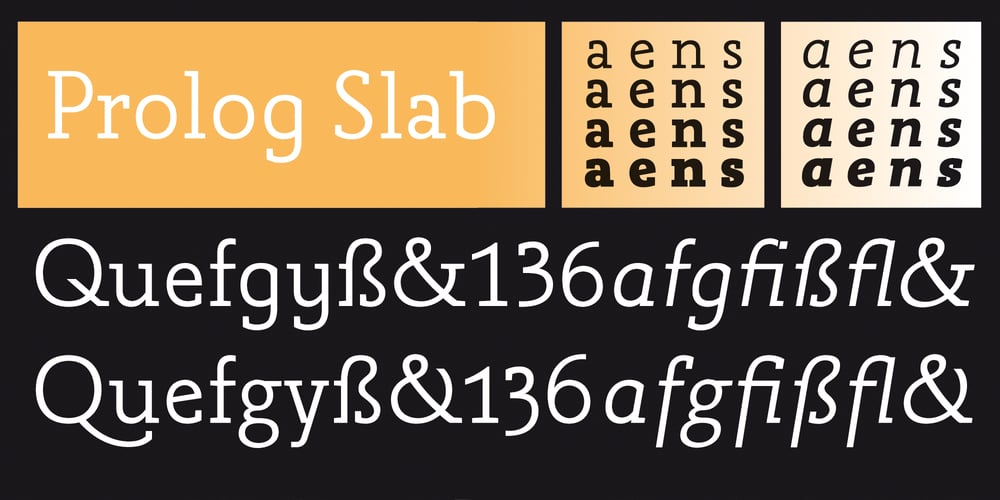
Prolog Slab Font Family was designed by Hellmut G. Bomm and published by HGB fonts. Prolog Slab contains 8 styles and family package options. Prolog Slab is part of an extended font family. Based on Giovanni Francesco Cresci’s font patterns from 1570, the serif Prolog Slab was developed to complement the Prolog font styles. Like all Prolog fonts, Prolog Slab features both a straight e and a slanted (Venetian) e. Additional variants (table numerals, Old Style Figures and alternatives of Q-P-g-y) are available via OpenType features. The typeface is easy to read in small degrees and yet independent. Prolog Slab is particularly suitable for technical content or for posters with a strong expression.